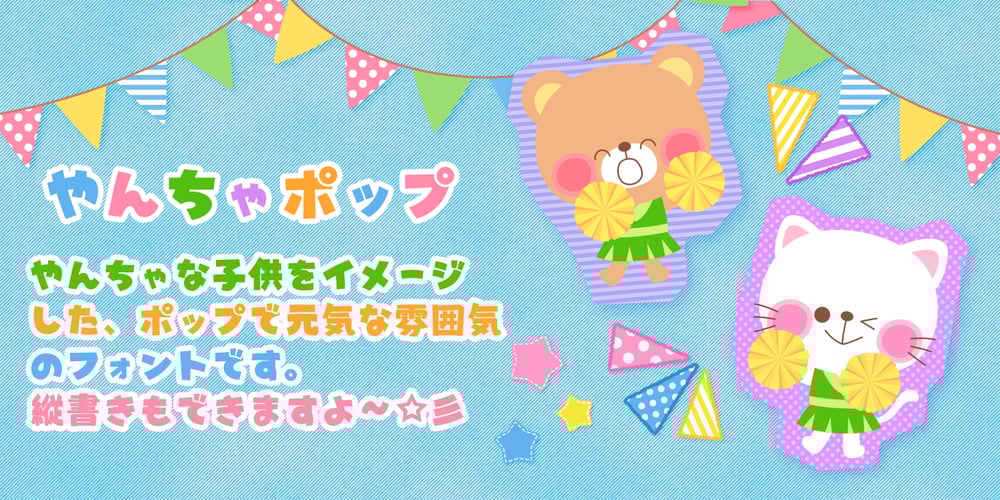
Yancha Pop Font Family was designed by Norio Kanisawa and published by Norio Kanisawa. Yancha Pop contains 3 styles and family package options. It’s a heavy and pop font that I imagined to be a naughty child. There are three kinds of “YanchaPop” which is easy to use with standards, “YanchaPopRounded” with a gentle impression which rounded the corner a little, “YanchaPopJitabata” of a cheerful image tilted randomly. It corresponds to Hiragana · Katakana · Alphabet · Numerals · Symbols · Kanji(chinese characters). You can also write vertically. You can use it easily, because it contains JIS first · second level, and IBM extended Kanji(about 6700chinese characters). This font is bold, recommended to use it for headlines and prominent places. It might be good for shop pop etc. I think it would be fun to make people around us happy like a naughty child. <「やんちゃポップ」紹介文> やんちゃな子供をイメージした、太めのポップ体です。 スタンダードで使いやすい「やんちゃポップ」、角を少し丸くした優しい印象の「やんちゃポップRounded」、ランダムに文字を傾けた元気なイメージの「やんちゃポップじたばた」の3種類がございます。 ひらがな・カタカナ・アルファベット・数字・記号類・漢字に対応。縦書きもできます。 漢字はJIS第一水準・第二水準・IBM拡張漢字(約6700文字)に対応しているので、使いやすいかと思います。 太めのフォントなので、見出しや目立つ場所に使うのがオススメです。お店のポップなどにもいいかもしれません。 やんちゃな子供みたいに、周囲の人たちを楽しくできるようなフォントになればいいなぁと思います。 <スタイルカテゴリー> ポップ体、角ゴシック